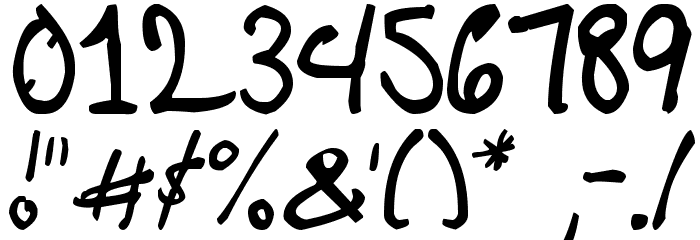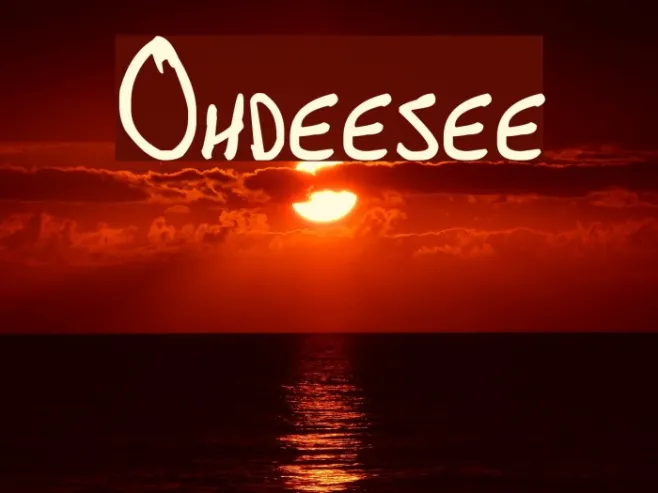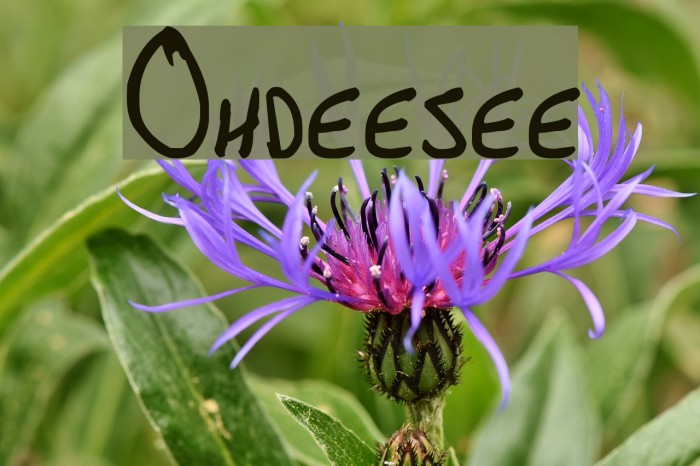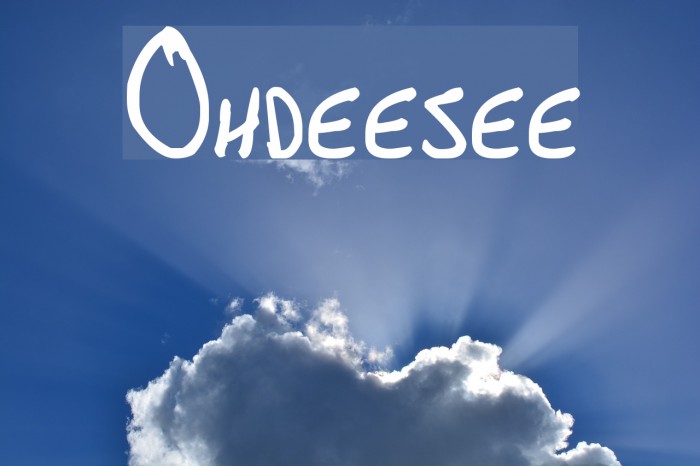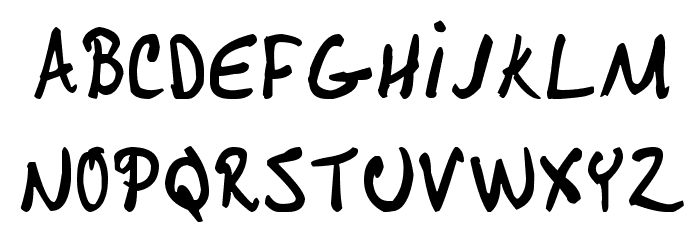
Ohdeesee Font
Ohdeesee Description
This font features a playful and energetic handwritten style, characterized by its irregular strokes and casual appearance. The uppercase letters are bold and slightly slanted, giving a sense of movement and dynamism. The lowercase letters maintain a consistent style, with rounded edges and a friendly demeanor. Numbers are bold and clear, making them easily readable. The special characters are creatively designed, adding to the overall whimsical feel of the font. This font's unique style makes it suitable for projects that require a personal touch or a fun, informal vibe.
Overall StylePlayful, Casual
Use CaseHeadlines, Logos, Informal Text
Proposed ProjectsIdeal for greeting cards, children's books, playful branding, and informal invitations.